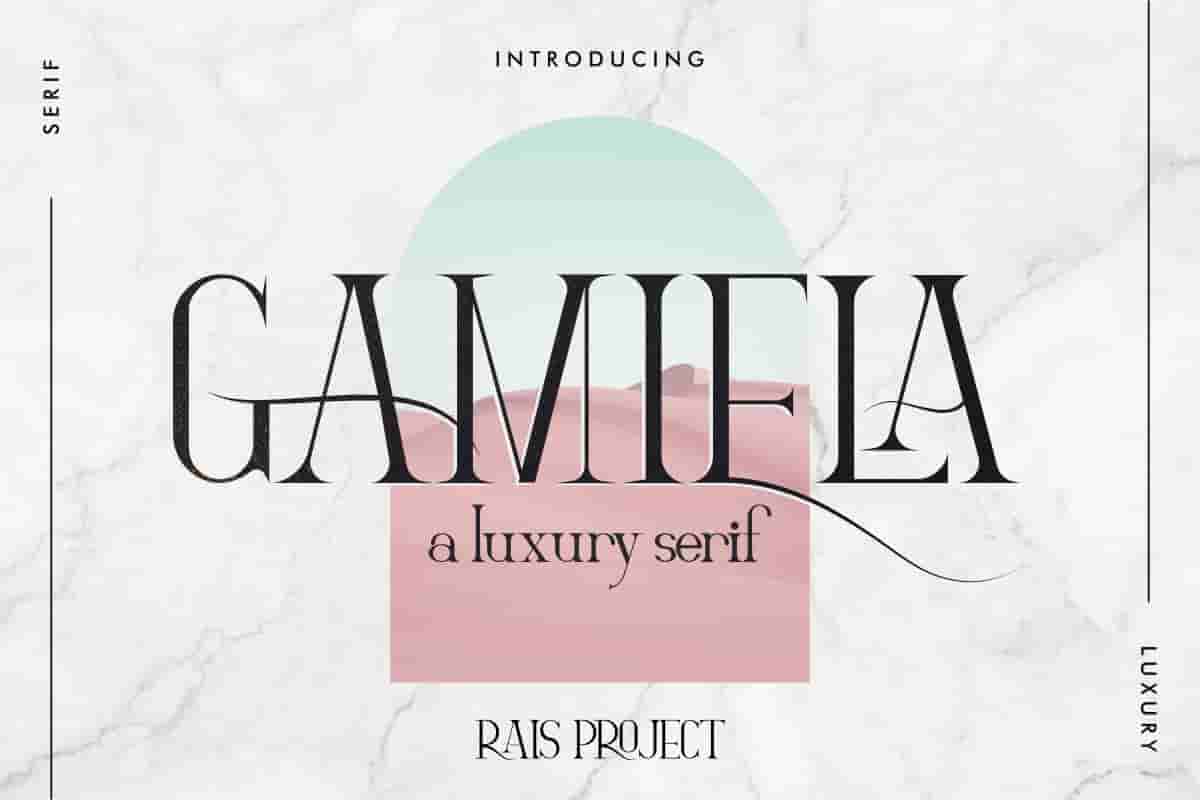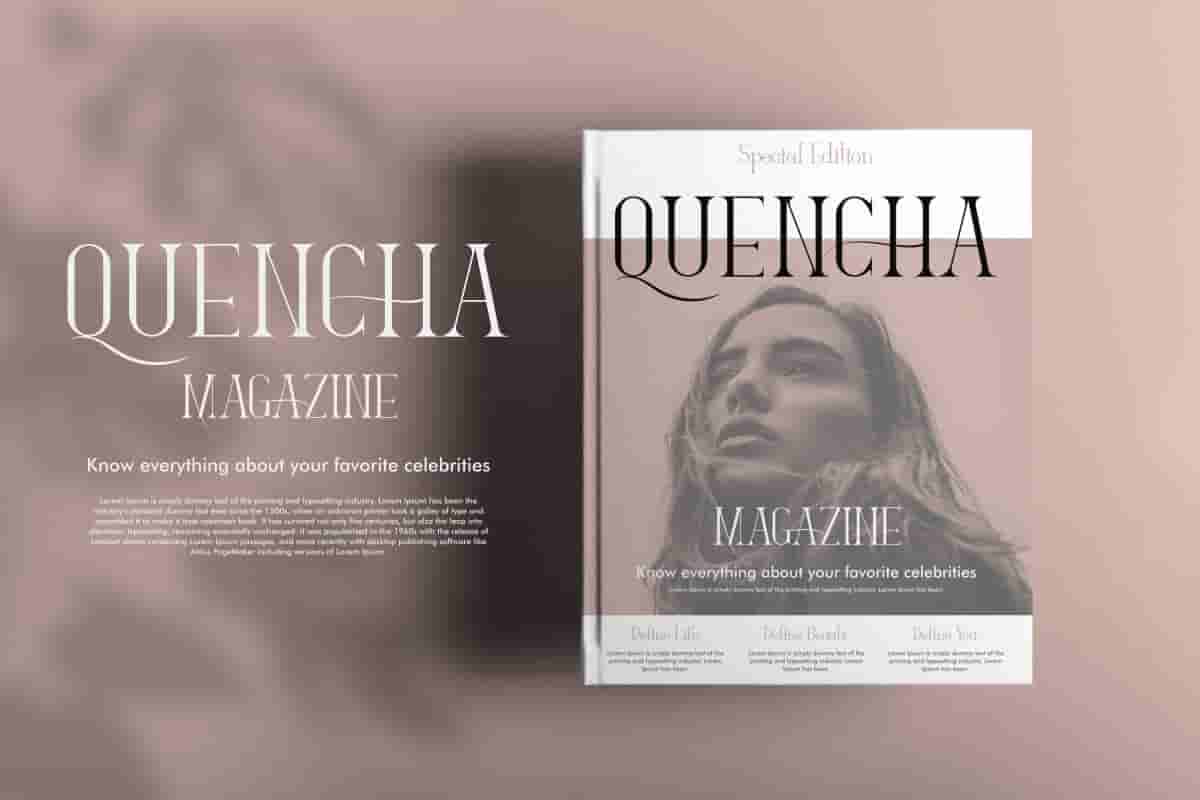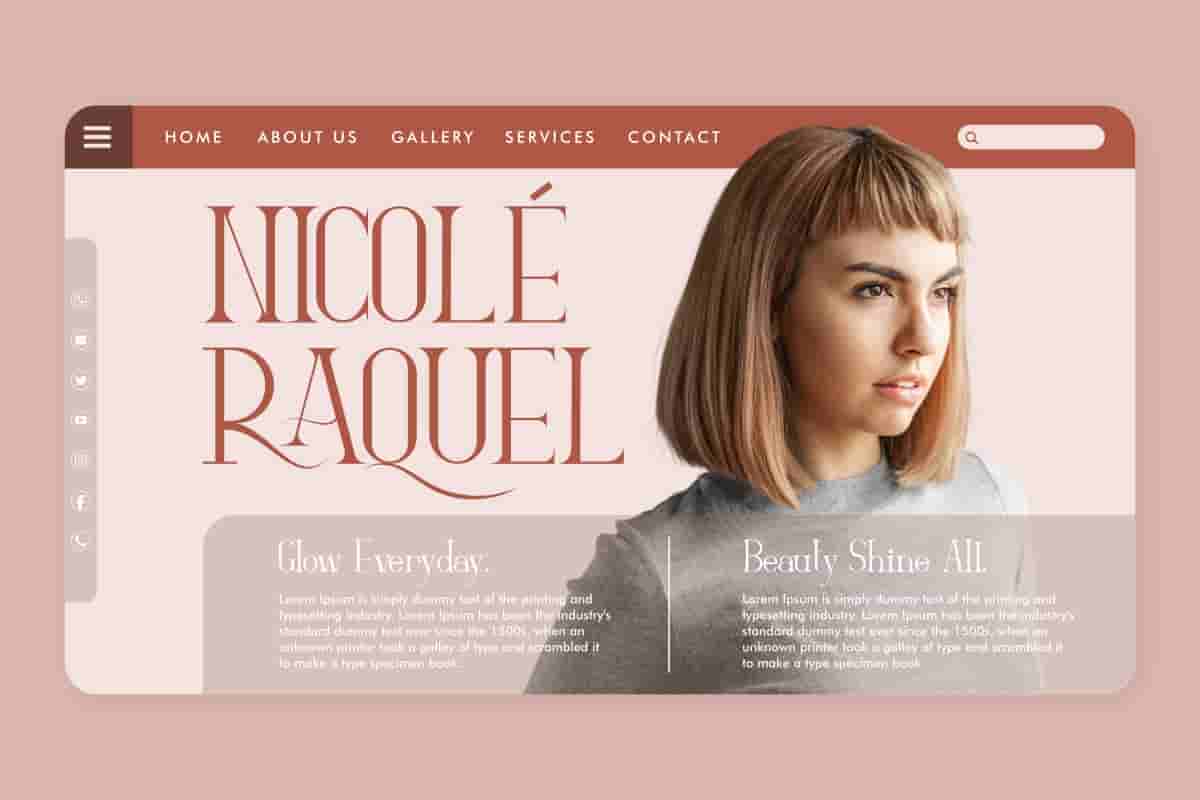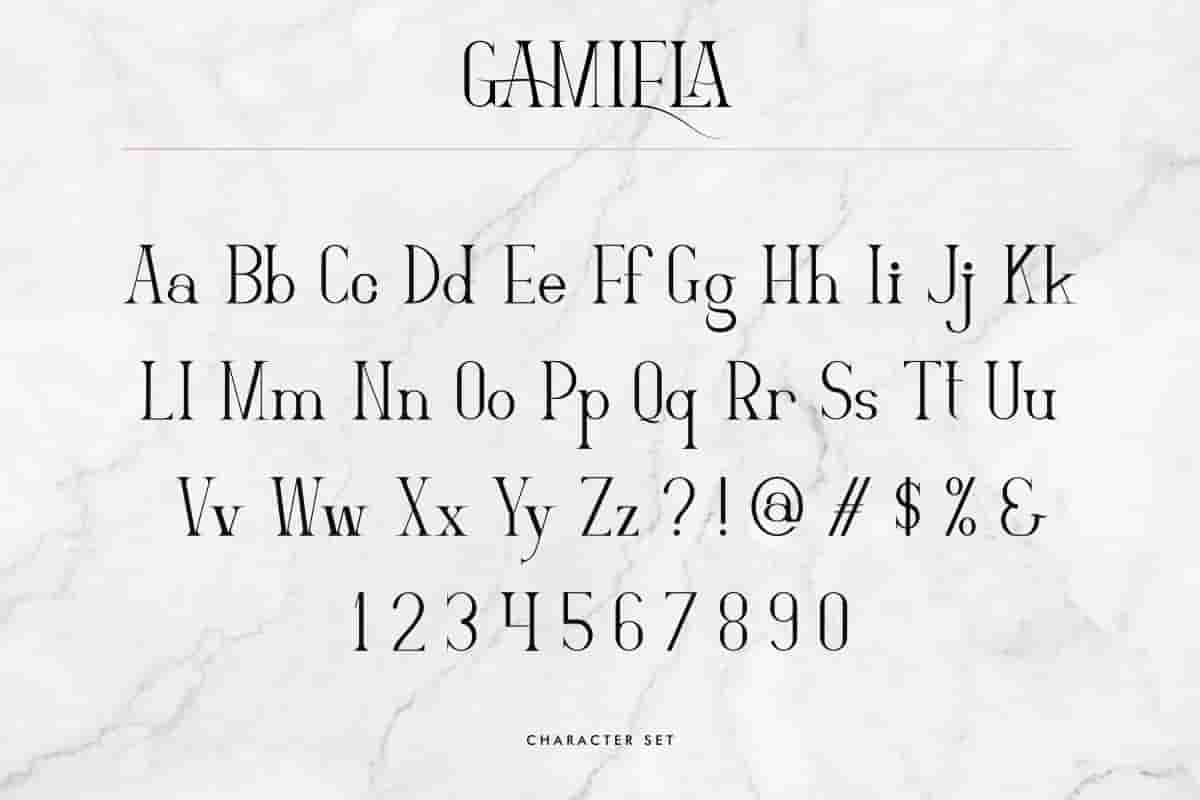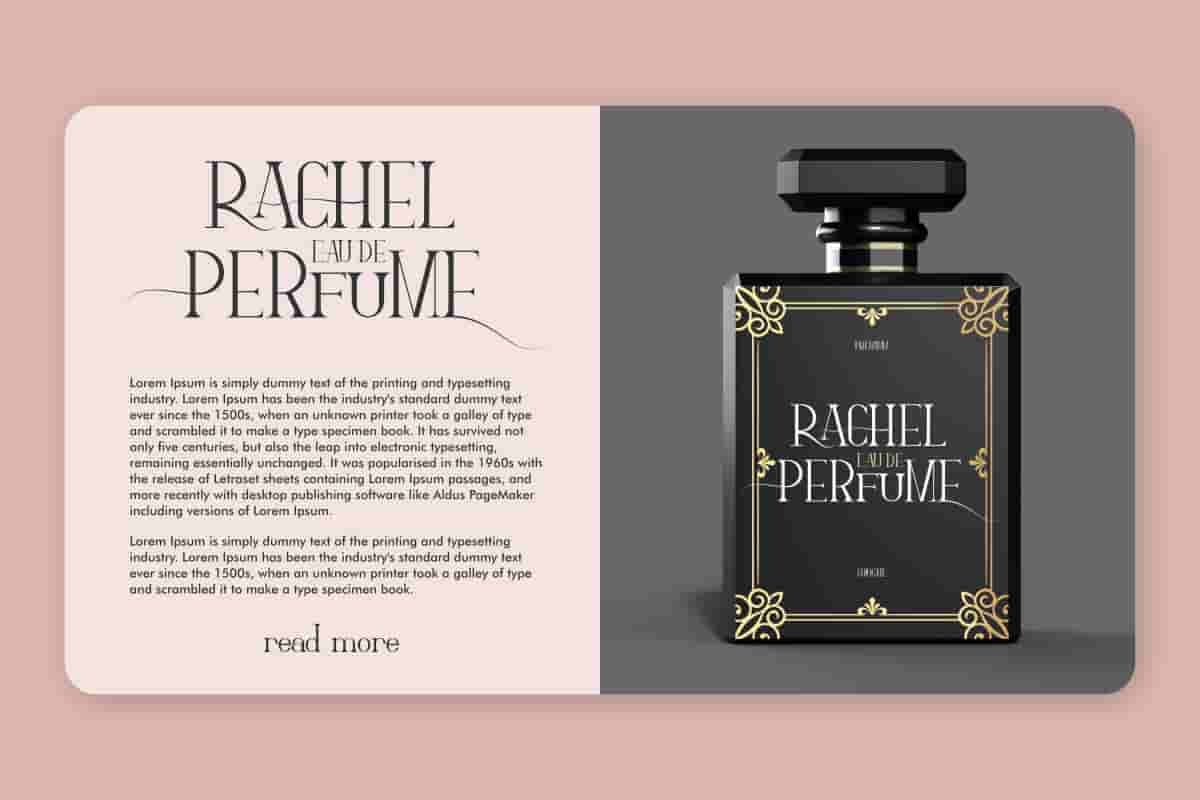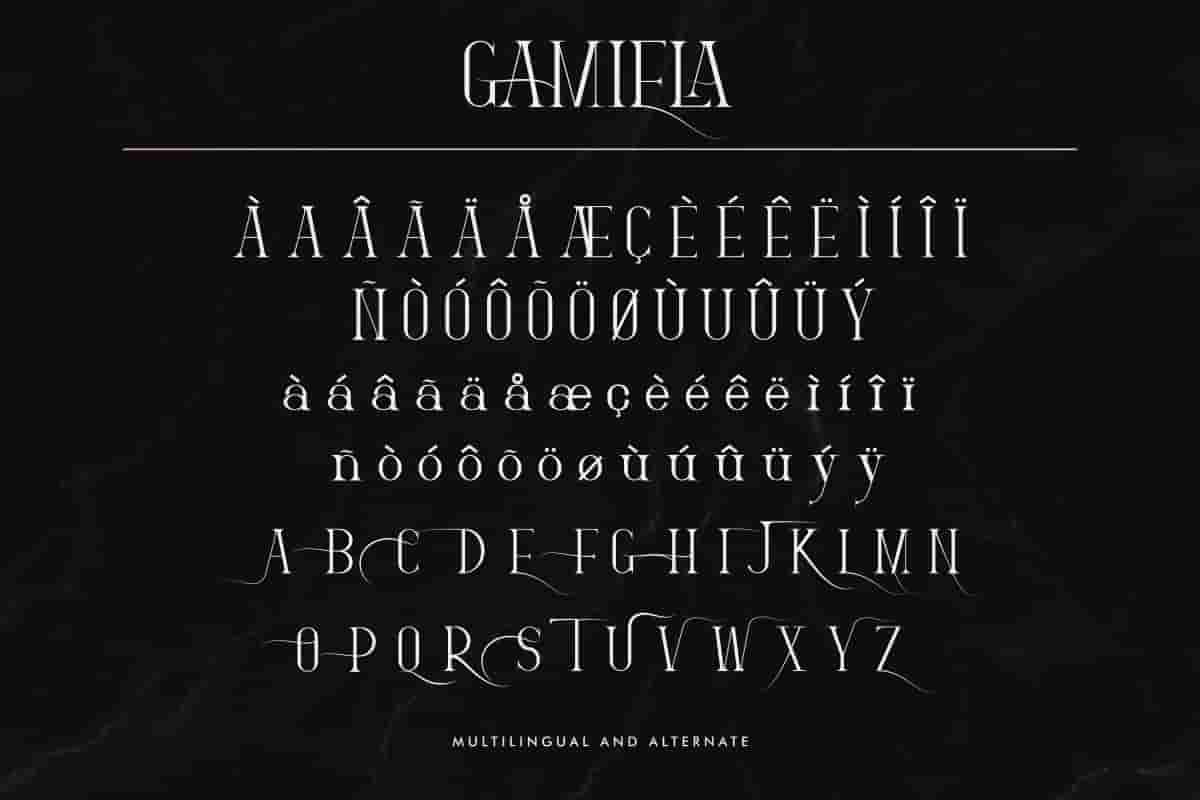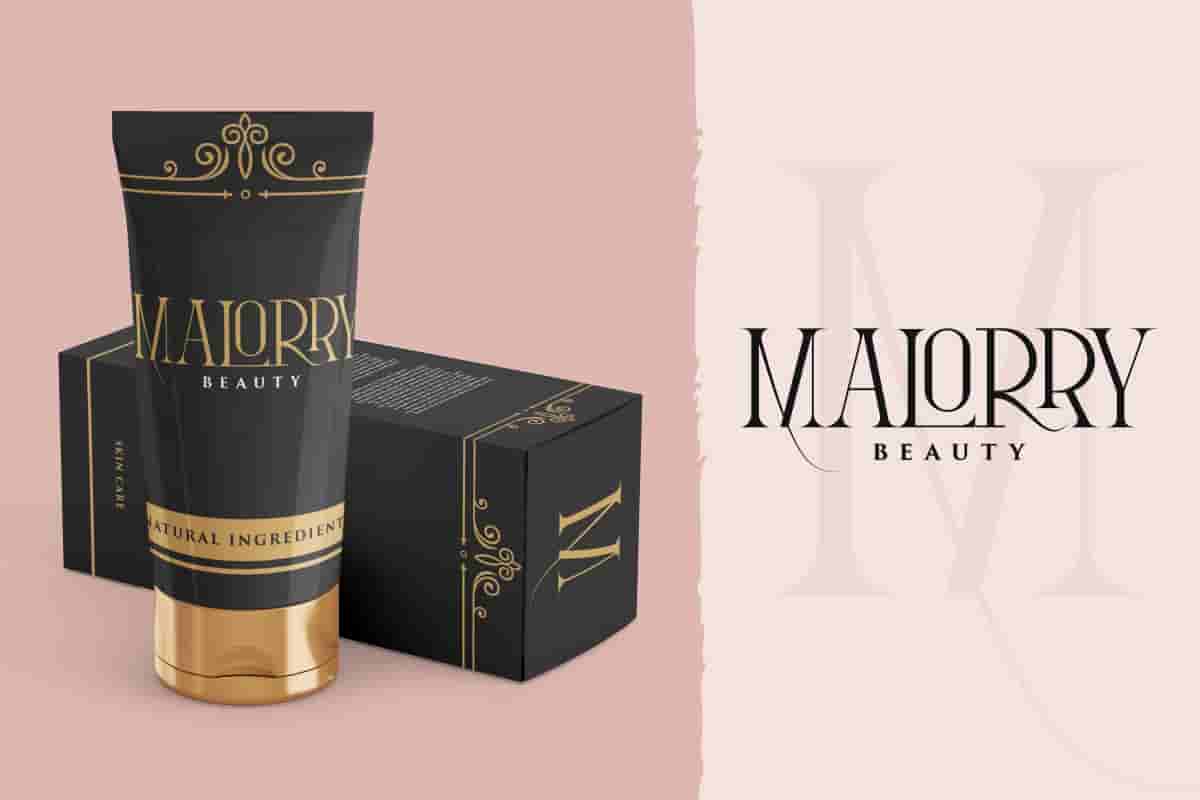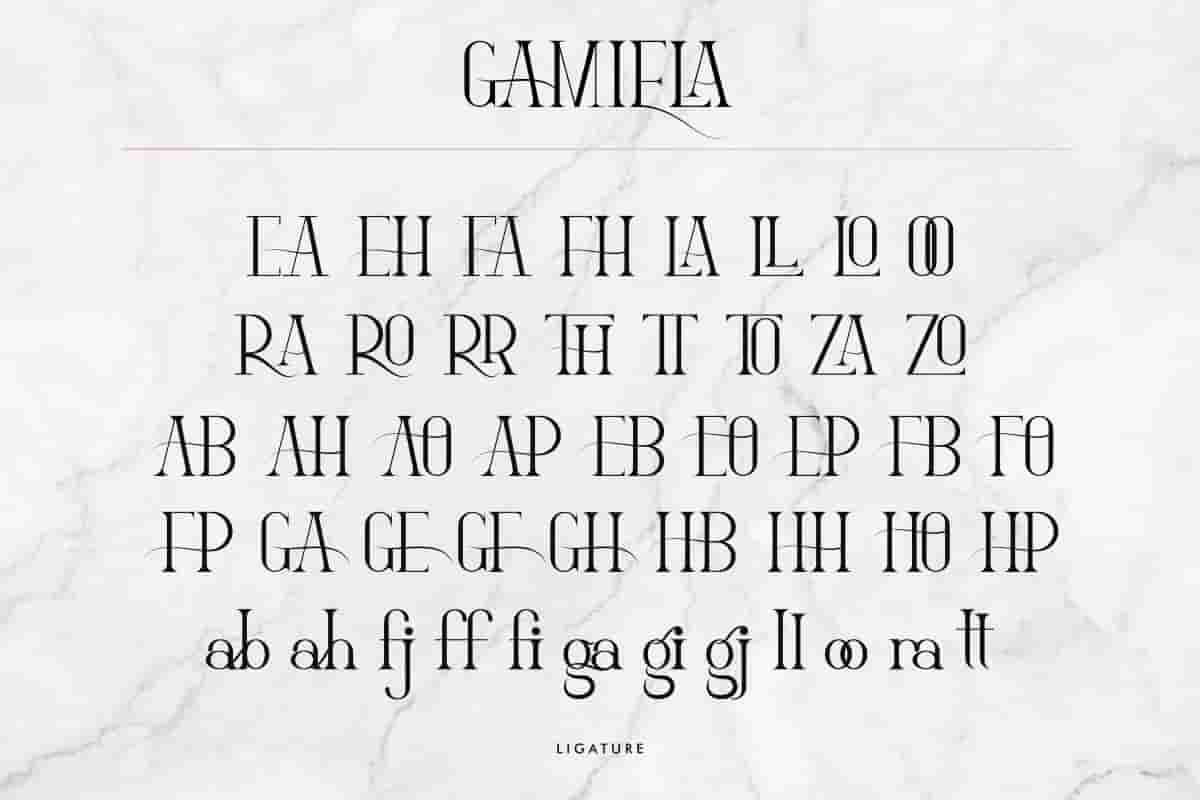
Gamiela Sans Serif Font
Gamiela Font is a luxurious display sans serif font family, designed by Rais Project. The font has exclusive style that great for casual, Beauty, Wedding, fashioun Magazine, Music, etc
Gamiela Font is a luxury style display Sans Serif modern font family, designed by RaisProject. It is our new font on the market. It has clean, modern and stylish style. You can see the demo font below. You can also input any word you want so you can see what it will look like :
Gamiela Font remotely made by RaisProject team in Indonesia. The font handcrafted for any your special projects including : headlines, promotion, events, branding, advertising, magazine, signage, invitation, stationery, social media posts, label, or and any projects that need unique strong style. The industries for this font is Cosmetic, Beauty, Wedding, Game, Magazine, Music, Fashion etc. Gamiela Font includes full set of gorgeous uppercase and lowercase letters ,numerals and Multi languages characters. On the package You will get: